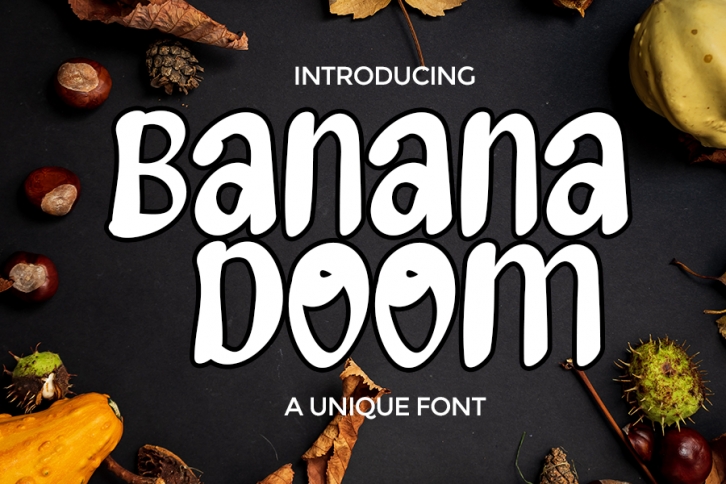
Banana Doom is a trendy and chic display font. This font was particularly crafted for those who need a beautiful and refreshing look to their designs.Â